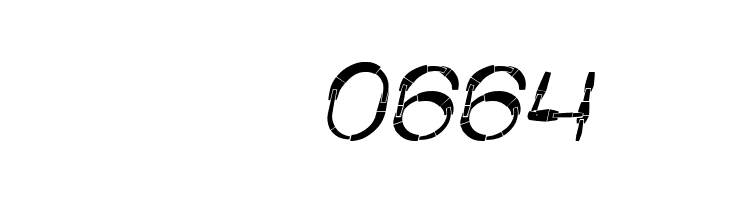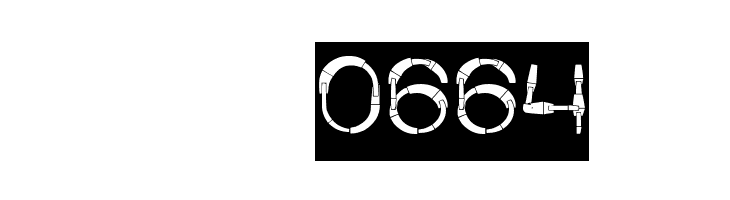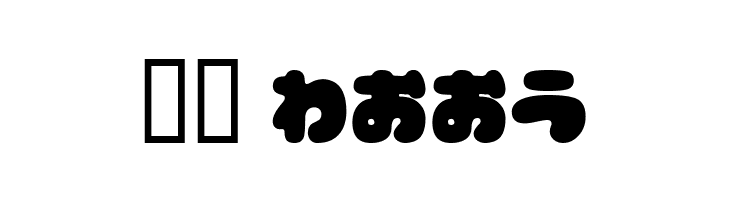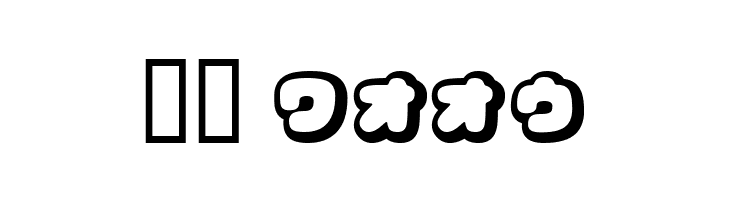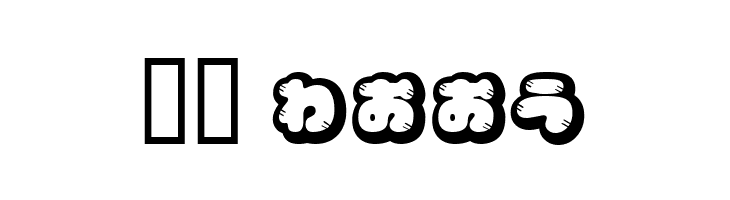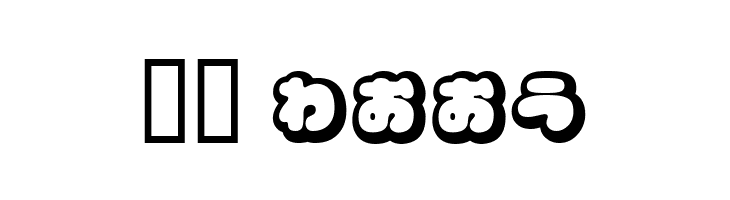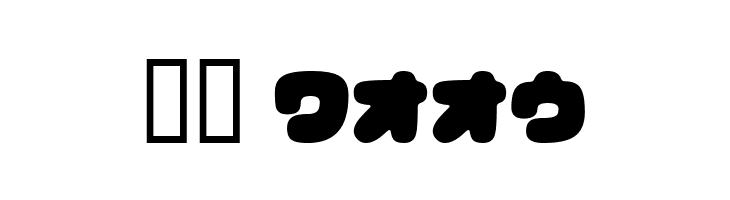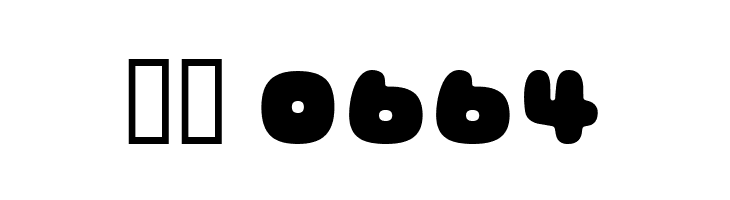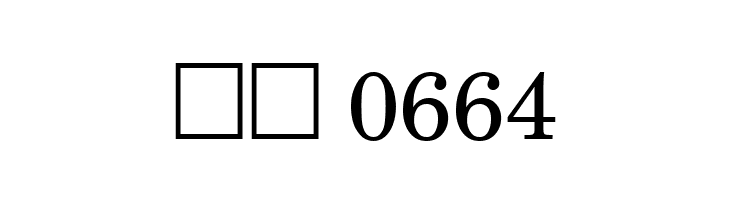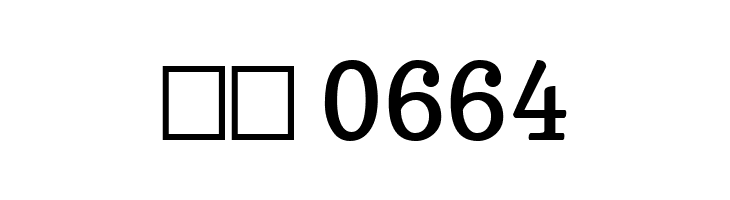
• Copilme Light
A modern, rounded sans-serif font with smooth edges and excellent readability.
• Copilme Light
A modern, rounded sans-serif font with uniform stroke width and excellent readability.
• Copilme Light Italic
A sleek, modern, light italic font with smooth, rounded edges.
• Copilme Regular
A modern, rounded sans-serif font with excellent readability and a friendly appearance.
• CoppepanAlChoco
A playful, bold font with rounded, bubble-like characters perfect for fun designs.
• CoppepanCreamAl
A playful, bubbly font with rounded, bold characters and a cartoonish style.
• CoppepanCreamHr
A playful, bold, and rounded font with a cartoonish, bubble-like appearance.
• CoppepanCreamKt
A playful, bold font with rounded, bubble-like characters.
• CoppepanHrChoco
A playful, bold font with rounded, bubble-like characters.
• CoppepanJamAl
A playful, bubbly font with bold, rounded characters and a cartoonish style.
• CoppepanJamHr
A playful, bold font with a cartoonish, bubbly style and thick outlines.
• CoppepanJamKt
A playful, bubbly font with thick, rounded strokes and a cartoonish style.
• CoppepanKtChoco
A bold, playful font with rounded edges and a bubbly appearance.
• COPPER
A bold, fragmented font with a modern, deconstructed style.
• COPPER
A fragmented and artistic font with a bold, dynamic style.
• Copper Canyon Inline WBW